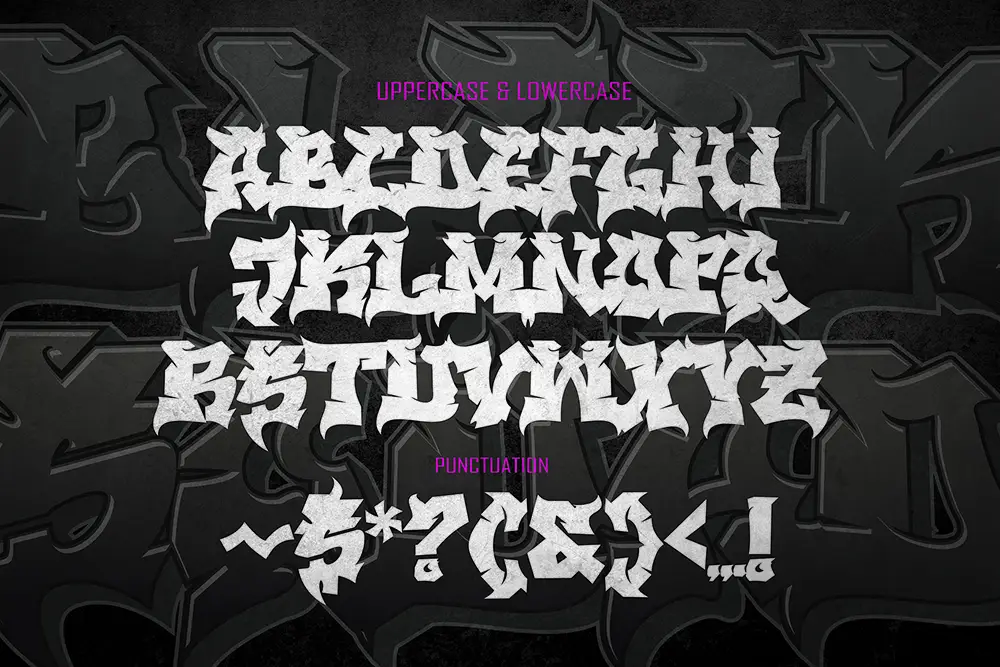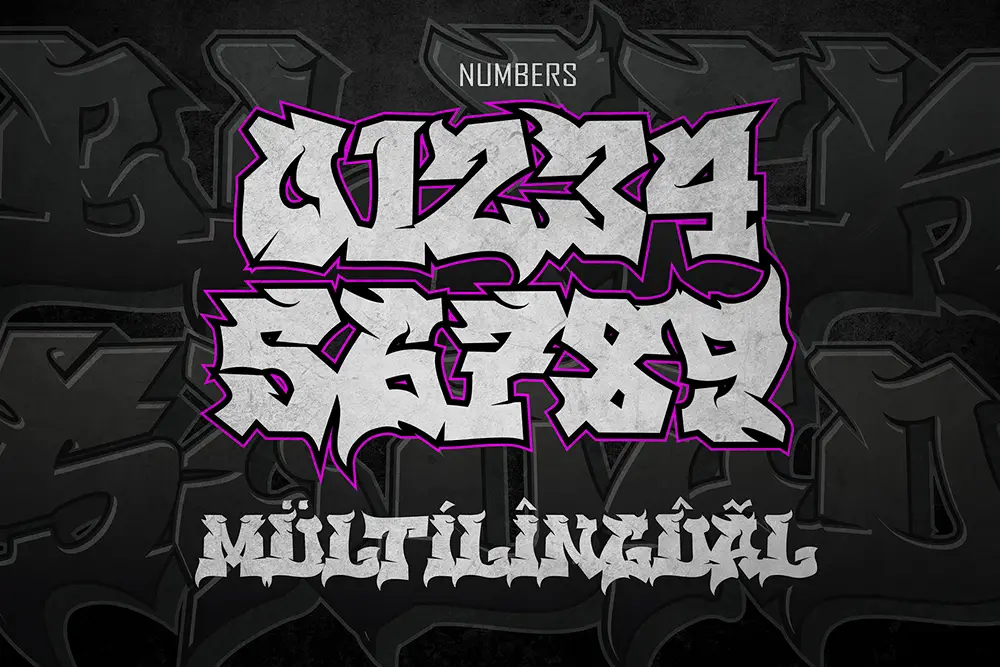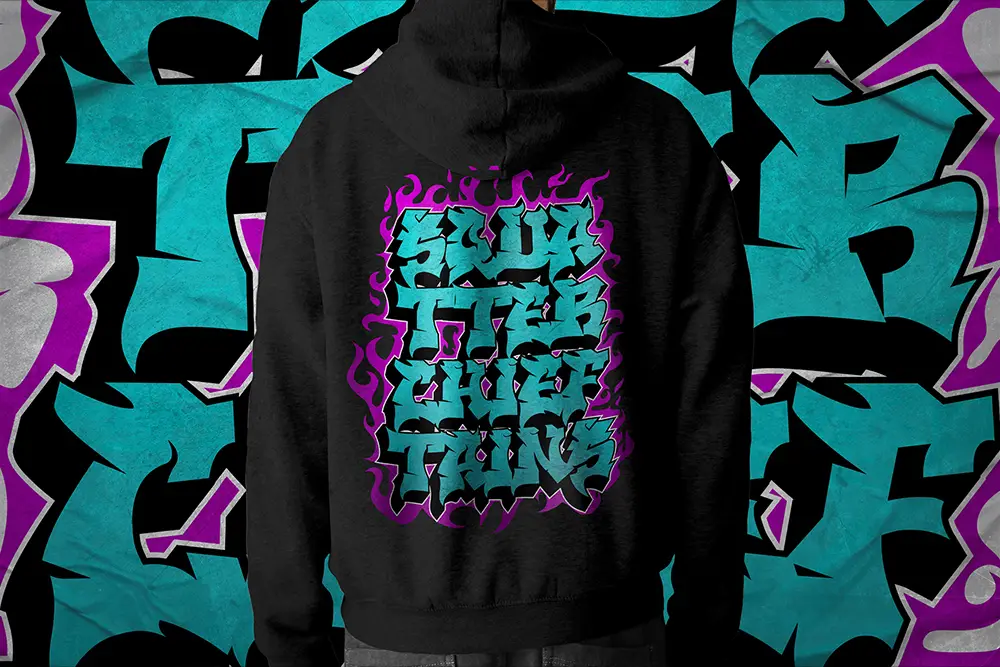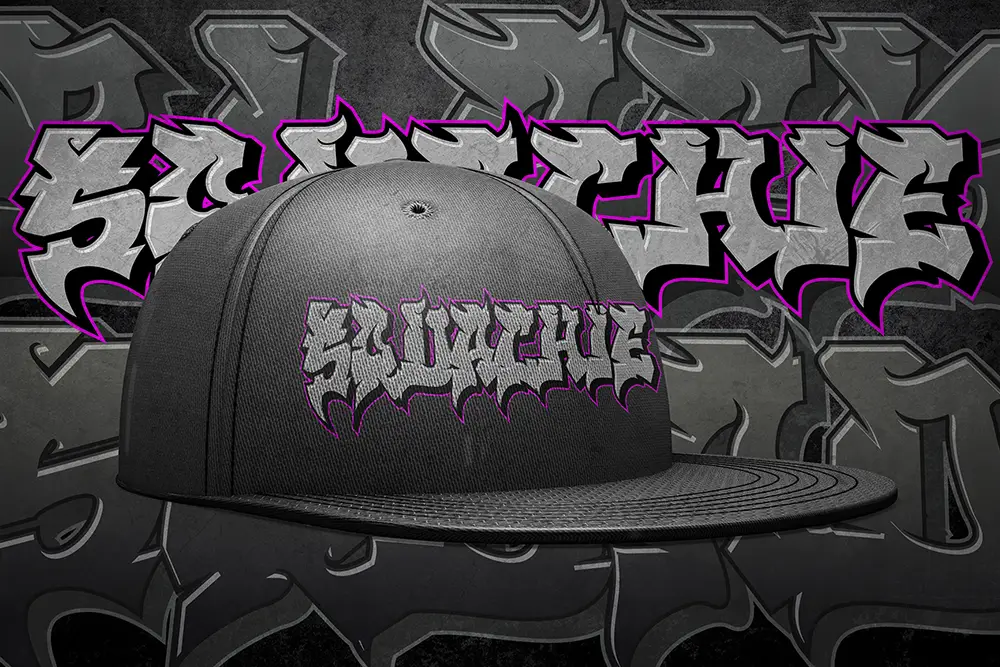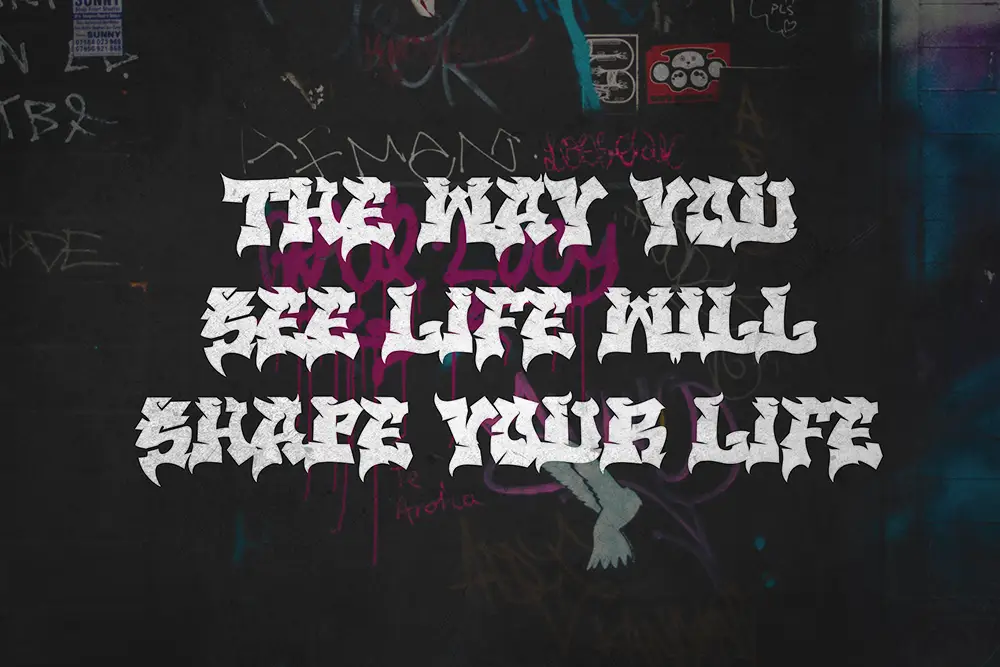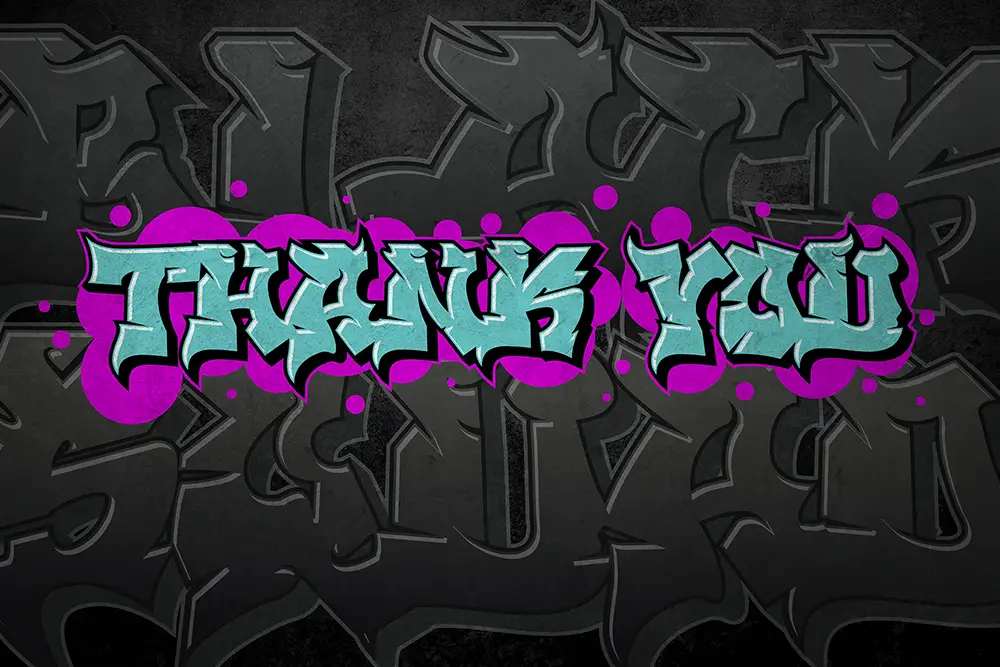
Black Squad – Bold Blackmetal Font for Extreme Design Power
Typography is not just about letters—it’s about attitude. Black Squad – Bold Blackmetal Font is crafted to bring maximum intensity, aggression, and impact to your designs. This typeface belongs to the bold blackmetal font category, designed for those who want heavy visuals that scream power. With its sharp strokes, extreme contrast, and all-caps structure, Black Squad is perfect for band logos, metal posters, horror branding, and dark merchandise designs.
If you’re searching for a font that combines brutality with design precision, this bold blackmetal font is your ultimate weapon.
Bold Blackmetal Font for Extreme Logos
Logos define identity, and when it comes to heavy genres, nothing works better than a bold blackmetal font. Black Squad is all caps by default, emphasizing dominance and authority. Its spiky structure and brutal weight ensure your band, brand, or product logo feels loud and unforgettable.
From underground metal bands to extreme sports branding, Black Squad communicates strength, rebellion, and unapologetic intensity.
Key Features of Black Squad – Bold Blackmetal Font
Every designer needs fonts that are more than stylish—they need to be functional. Here’s what makes Black Squad – Bold Blackmetal Font stand out:
- Uppercase All Caps: Built for maximum impact and heavy visual identity.
- Multilingual Support: Covers extended Latin characters for global audiences.
- Bold Blackmetal Style: Perfect for metal music, horror, and dark branding.
- Strong, Aggressive Strokes: Creates a powerful presence in every design.
- High Versatility: Great for posters, covers, banners, and large titles.
Why Designers Love Black Squad
Designers love Black Squad – Bold Blackmetal Font because it pushes boundaries. It’s not just a typeface; it’s a visual statement.
Here’s why creatives can’t get enough:
- Heavy Aesthetic: Captures the raw energy of metal and horror genres.
- All Caps Impact: Instantly makes designs look bolder and more powerful.
- Global Reach: Multilingual support makes it usable across markets.
- Professional Quality: Designed with clean curves and aggressive detailing.
Bold Blackmetal Font for Posters and Album Covers
Black Squad shines in large-scale designs. As a bold blackmetal font, it thrives on posters, banners, and especially album covers. The harsh angles and spiky shapes instantly grab attention, making it perfect for music promotion, festival campaigns, and extreme event branding.
Whether you’re promoting a blackmetal concert or designing horror-themed artwork, Black Squad ensures your typography feels as aggressive as your concept.
Using Black Squad in Branding
Brands that want to stand out in competitive, edgy markets need bold typography. Black Squad delivers the raw power of a bold blackmetal font with clarity and authority. It works for extreme sports logos, underground clothing brands, event promotions, and horror merchandise packaging.
- Character Set: Uppercase All Caps, Numbers, Punctuation
- Category: Bold Blackmetal Font
- Best Uses: Logos, Posters, Album Covers, Horror Branding, Extreme Design
Font Pairing Suggestions
Choosing the right pairing can amplify the effect of Black Squad. For the best results, try:
- Kastroz Luxury Vintage Serif Font – balances the raw energy of Black Squad with sophistication.
This pairing gives designers flexibility to create projects that feel aggressive yet professional.
Why Black Squad is the Bold Blackmetal Font You Need
In a world filled with minimalist fonts, Black Squad stands tall as a rebellion. As a bold blackmetal font, it’s designed for those who want to be loud, fearless, and unforgettable. Its sharp angles, extended strokes, and all-caps power make it the ultimate choice for aggressive, dark, and heavy design projects.
Designers who use Black Squad don’t just create graphics—they make statements.
Black Squad – Bold Blackmetal Font is the weapon of choice for designers who dare to go extreme. With its all-caps structure, multilingual support, and OTF/TTF/WOFF formats, it’s powerful and practical.
Don’t just design—dominate with Black Squad.